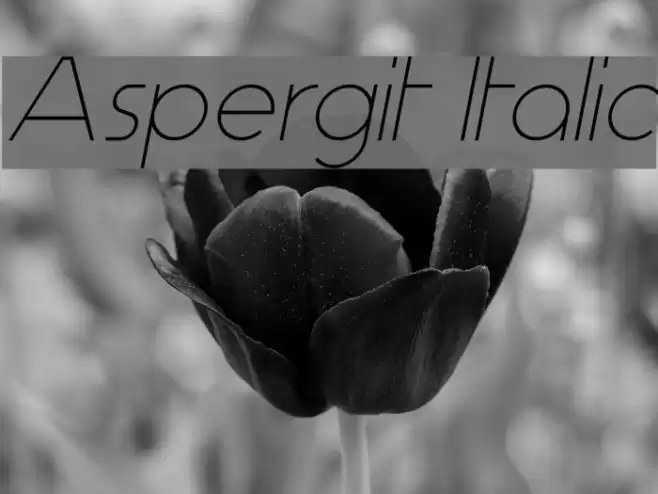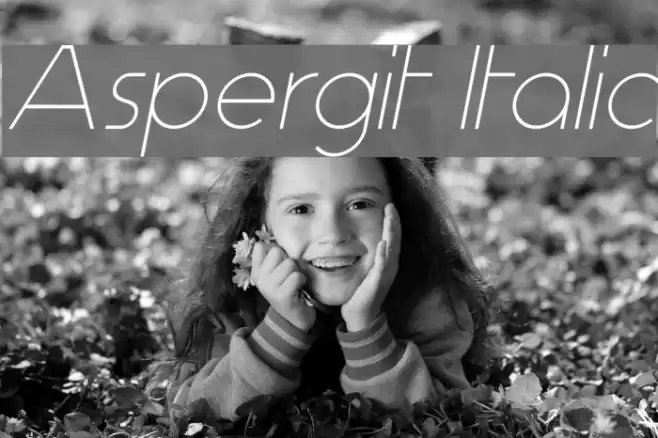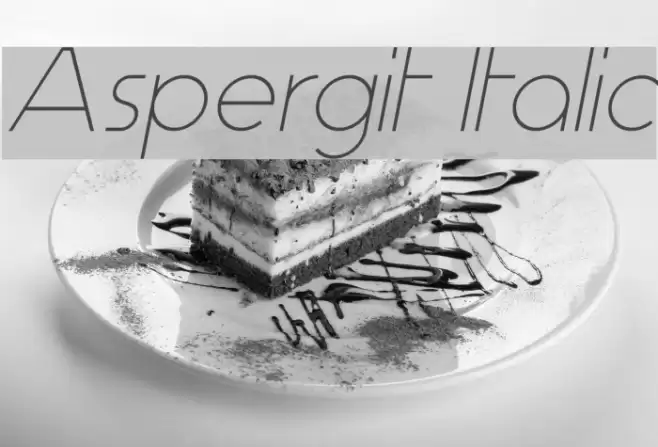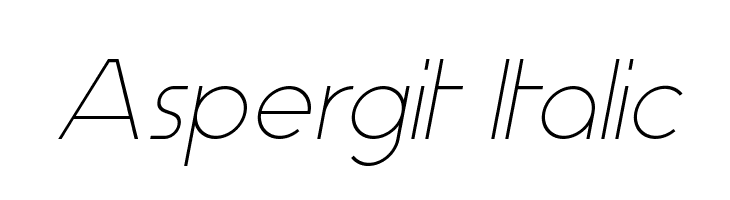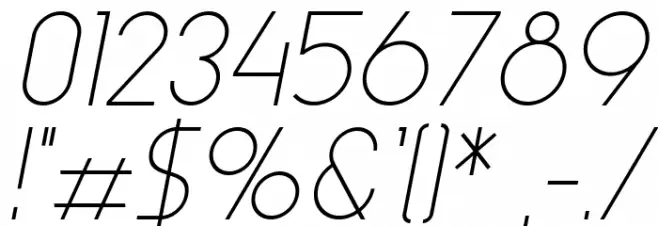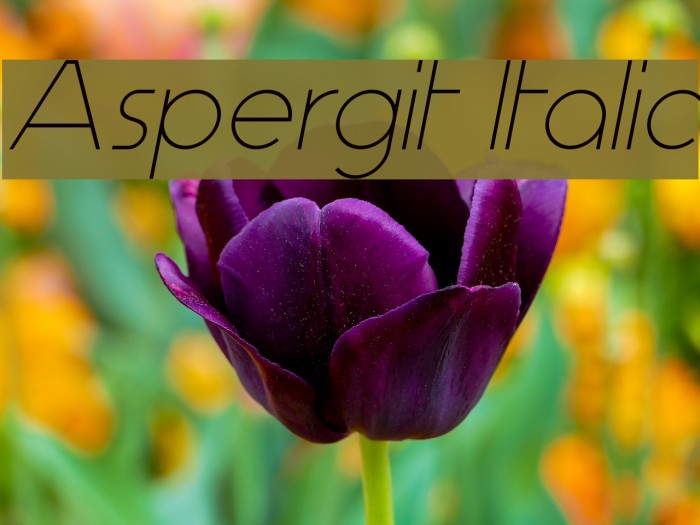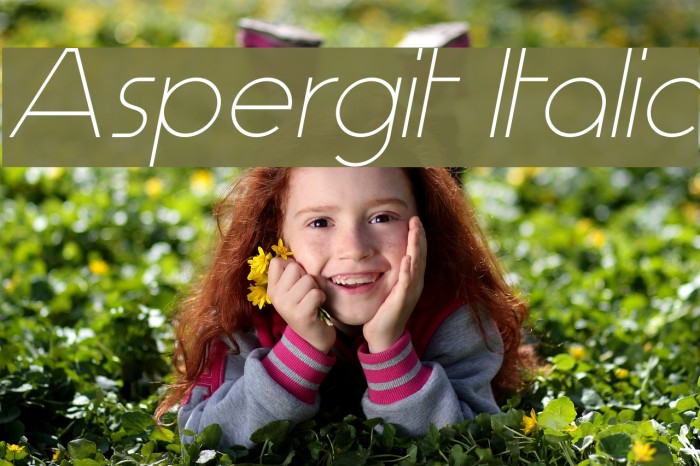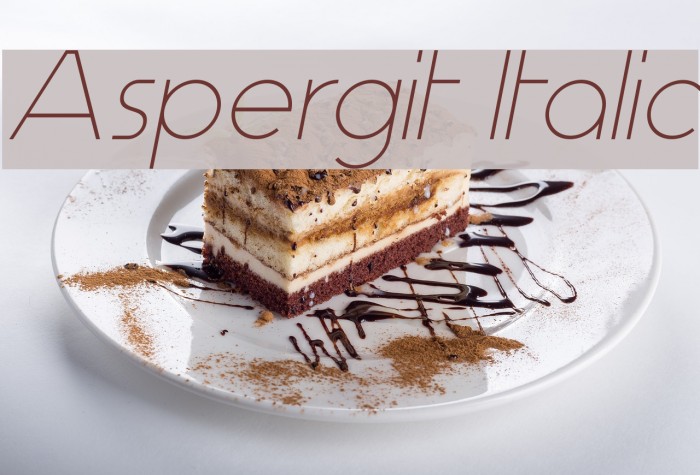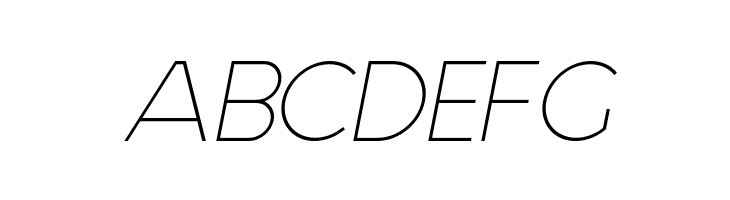
Aspergit Italic Font
Aspergit Italic Description
This font features a sleek and modern design with a distinct italic slant, giving it a dynamic and forward-moving appearance. The characters are crafted with a clean, sans-serif style, emphasizing simplicity and readability. The strokes are consistent in thickness, providing a uniform look across all characters. The numerals and special characters maintain the same elegant style, ensuring cohesion throughout. This font's minimalist aesthetic makes it versatile for various applications, from digital to print media.
A sleek, modern italic sans-serif font with consistent stroke thickness from Sans Serif fonts.